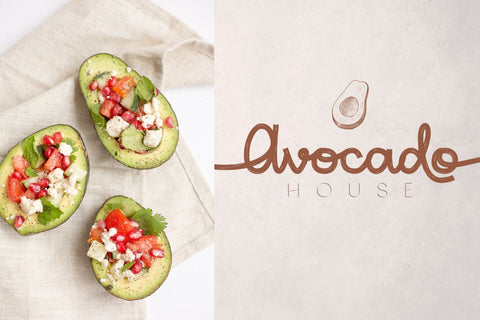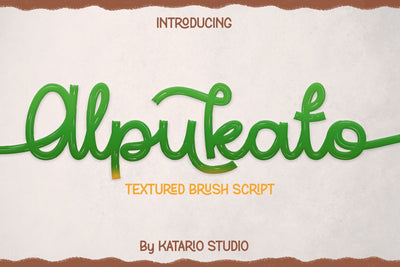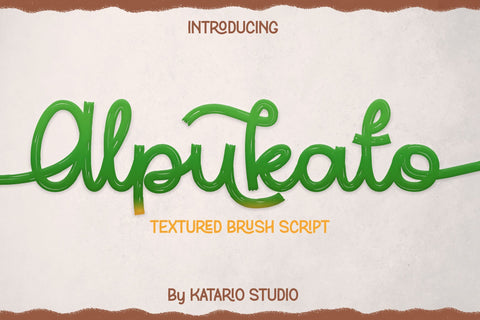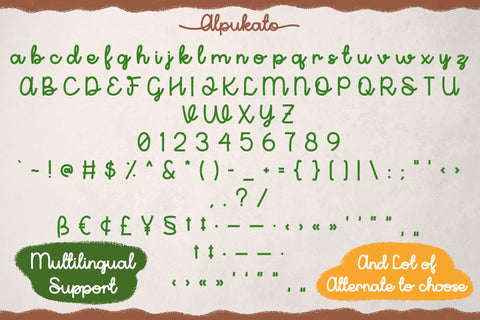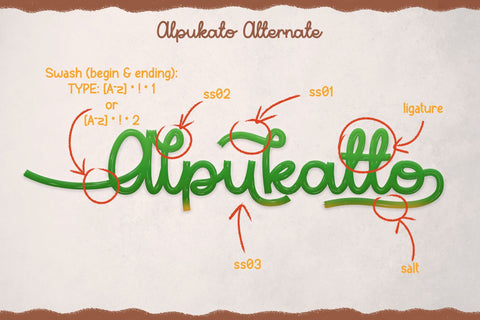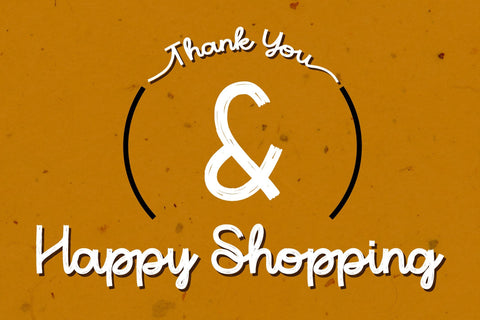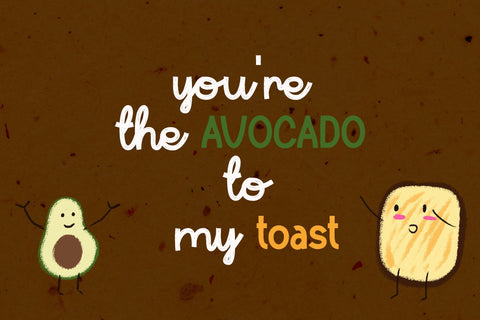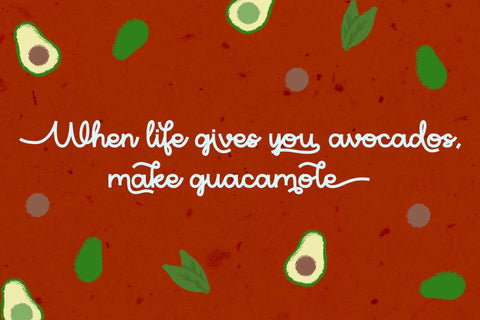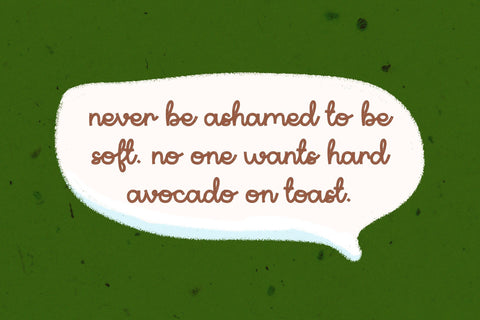
Alpukato | Monoline Brush Script Font
Introducing, Alpukato - Textured Monoline Brush Script Font. Alpukato is a modern script typeface that that has many alternate to choose and multilingual support. The textured brush gives this typeface a authentic vintage vibe. This type of font perfectly made to be applied especially in invitation, wedding cards, fashion, make up, stationery, crafting items, greeting cards, book, novels, brand name, labels or any type of advertising purpose.
- Uppercase Characters
- Lowercase Characters
- Stylistic alternate
- Stylistic Set Characters (ss01, ss02, ss03)